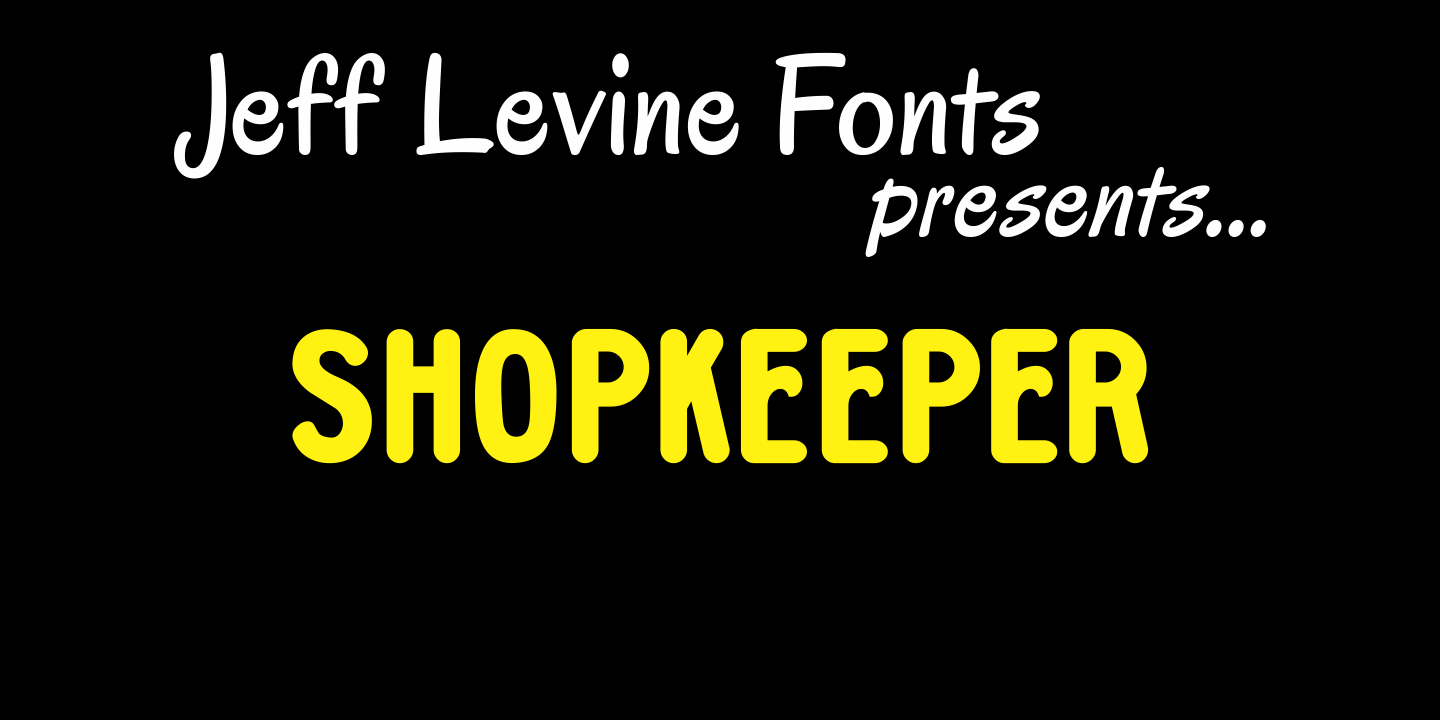
Shopkeeper
Shopkeeper JNL derives its unusual letter forms from impressions made from a vintage rubber stamp sign and chart printing set. Originally an outline font, the letters are rendered solid in the digital version for more versatility.
Shopkeeper JNL Regular by Jeff Levine Fonts